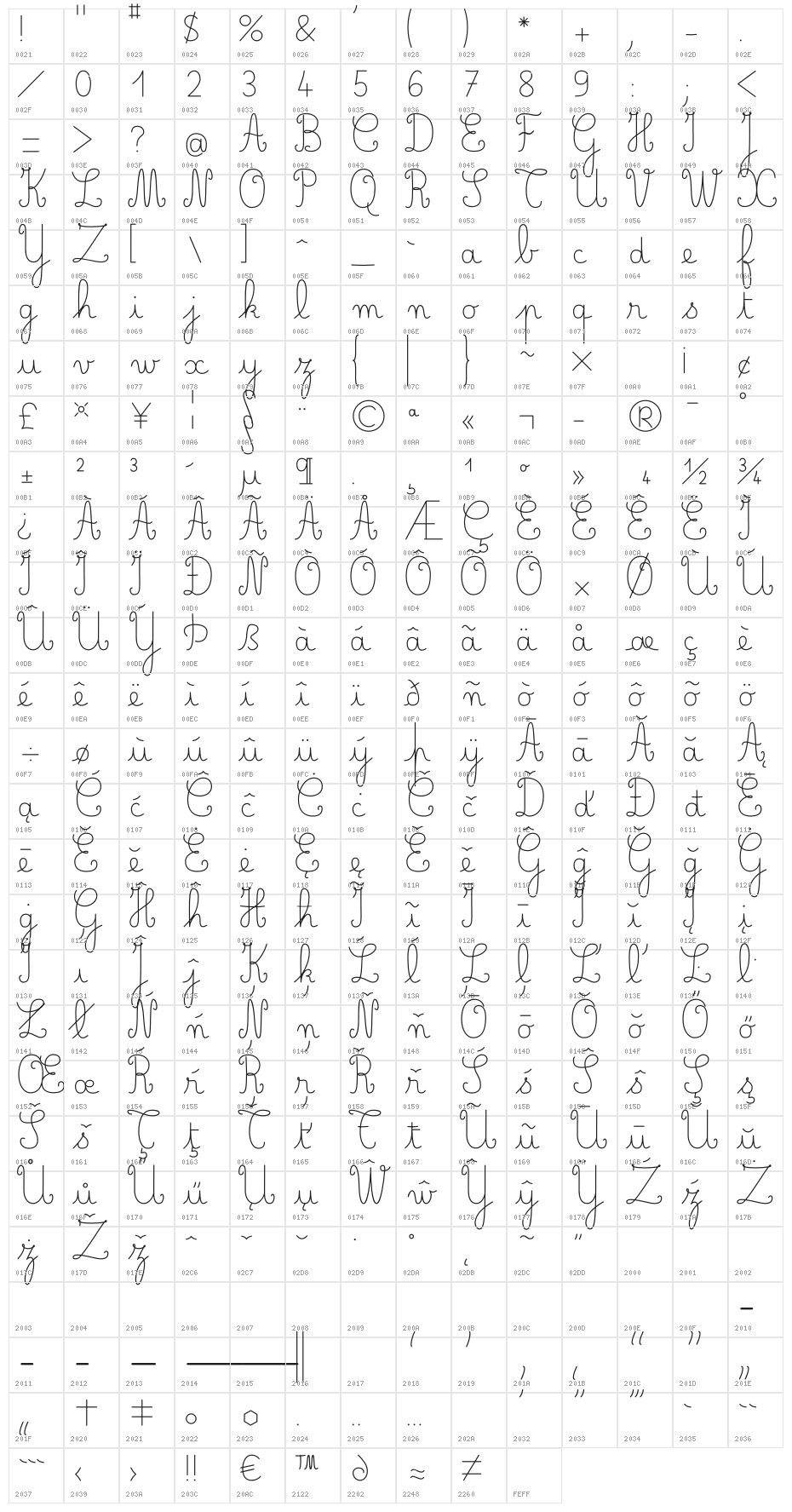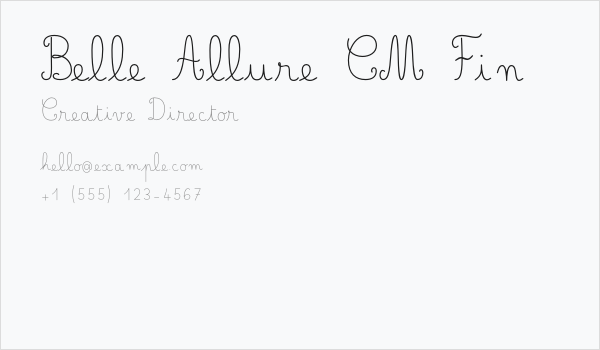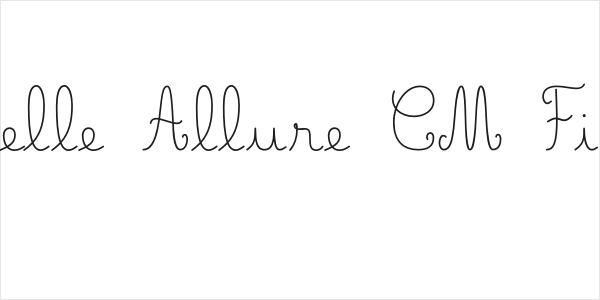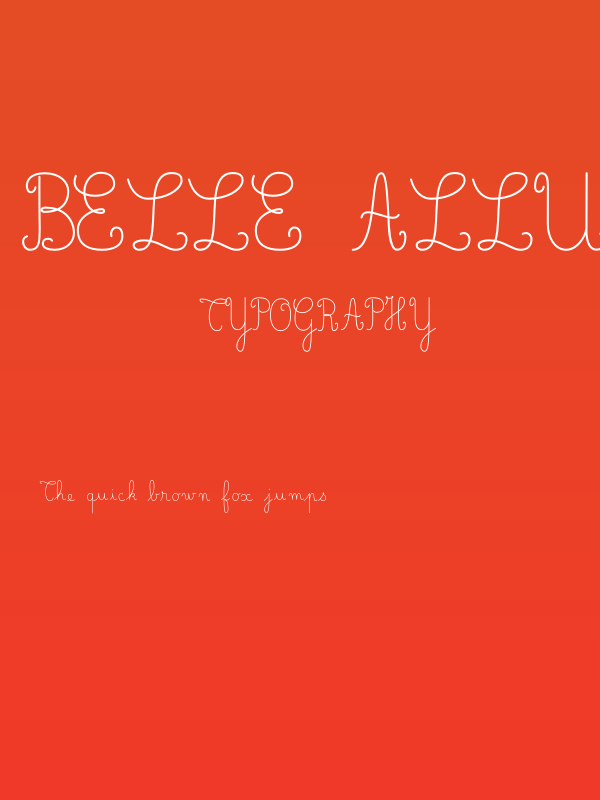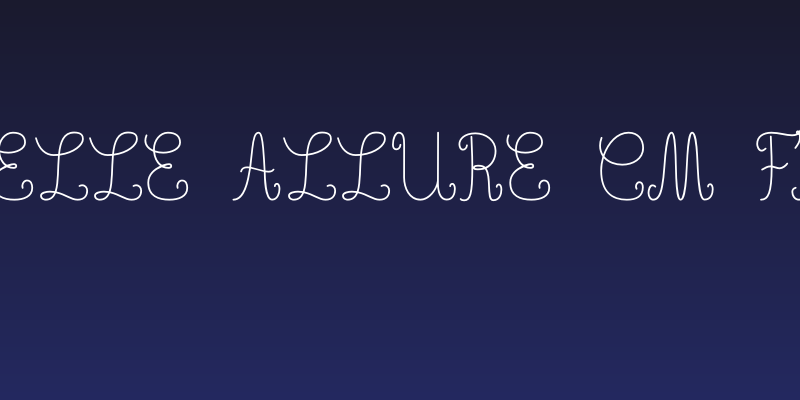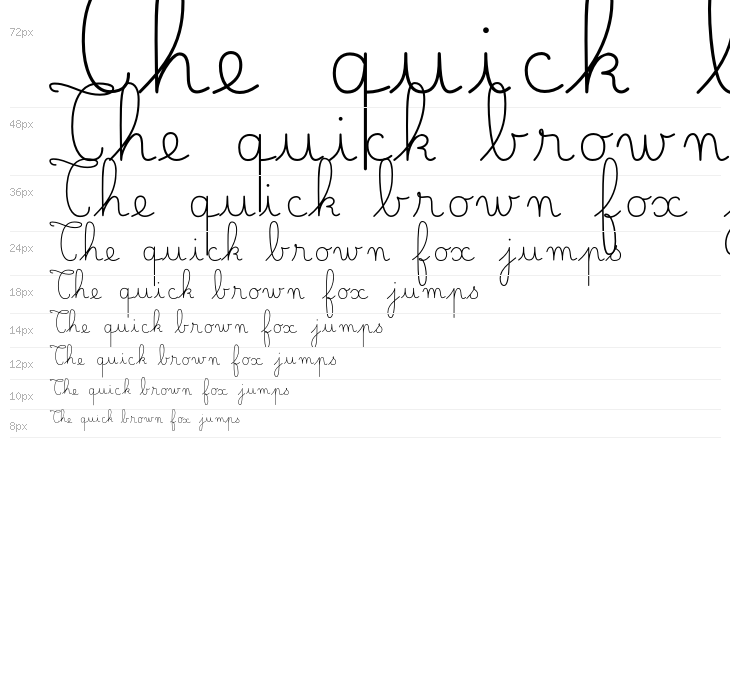
Belle Allure CM Fin Font
Belle Allure CM Fin Description
This font features an elegant and whimsical design with a handwritten style. The characters are adorned with delicate swirls and loops, giving it a playful yet sophisticated appearance. The uppercase letters are tall and slender, with unique flourishes that add a touch of charm. The lowercase letters maintain a consistent flow, enhancing readability while retaining the decorative elements. Numbers and special characters are crafted with the same attention to detail, ensuring a cohesive look throughout. The overall design is light and airy, making it suitable for projects that require a touch of elegance and creativity.